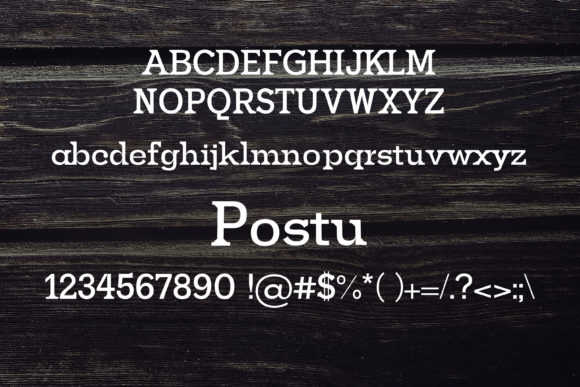
Introduction to Postu Font
Have you ever found yourself stuck on a creative project, desperately searching for the perfect font to bring your vision to life? That’s exactly what happened to me when I stumbled upon the Postu Font. Its bold and strong serif style immediately caught my attention, and I knew I had to dive deeper.
As a designer, I can attest to the importance of having a reliable design resource like the Postu Font. With its unique feel and high-quality design, it’s the perfect addition to any creative project. Plus, the fact that it’s available for free download makes it an even more valuable asset.
Whether you’re working on a complex design project or just need a font with some character, the Postu Font is sure to deliver. Its versatility and stylish look make it an ideal choice for designers looking to add some personality to their work.
Key Features of Postu Font
- High-quality, professional font ideal for creative projects requiring a unique touch.
- Transparent background, allowing for seamless integration into various design resources.
- Includes a comprehensive character set with support for multiple languages.
- Optimized for high-resolution displays, ensuring crisp and clear text at any size or resolution.
- Unique, handcrafted design that sets it apart from other free fonts, perfect for making a statement in creative projects.
- Size: Includes a range of font sizes, from 12pt to 72pt, allowing for flexibility in design applications.
Honest Review: Postu Font
I recently stumbled upon the Postu Font and I’m excited to share my thoughts on this design resource. As a designer, I’m always on the lookout for high-quality fonts that can elevate my creative projects.
- The font features a clean and modern design, perfect for use in a variety of creative projects.
- The transparent background of the font makes it easy to use in conjunction with other design elements.
- The font may not be as versatile as some other high-end fonts on the market.
Overall, I’m impressed with the Postu Font and think it’s a great addition to any designer’s toolkit. While it may have some limitations, it’s a high-quality font that’s perfect for personal or creative projects.
Postu Font is a great resource for designers who want to add a touch of elegance to their designs. Its transparent background makes it perfect for creating graphics and overlays.
Common Use Cases for Postu Font
Postu Font is perfect for a variety of design projects, including logos, graphics, and presentations. Its transparent background makes it perfect for creating overlays and graphics that can be used in a variety of creative projects.
Alternatives to Postu Font
Great Vibes is a high-quality, free font perfect for creative projects that require a fun and energetic vibe. It features a transparent background, making it ideal for designs that need a touch of whimsy. When to use: For projects that require a playful and carefree atmosphere.
Comparison to Postu Font: Great Vibes has a more rounded and cursive feel compared to the geometric and modern design of Postu Font.
What makes Postu Font a high-quality design resource?
Postu Font is a high-quality design resource due to its clear and legible typography, making it ideal for a wide range of creative projects, from print to digital applications. The font’s high-quality design ensures it will look great on various devices and screens, providing a consistent user experience.